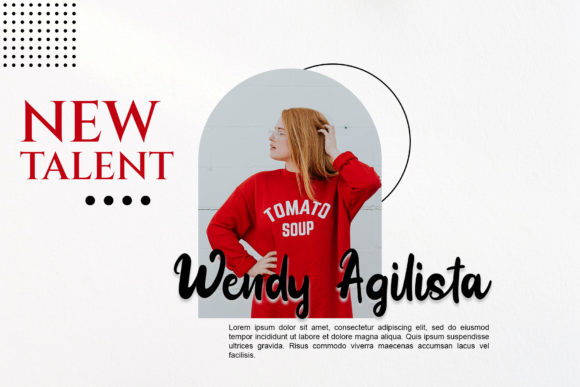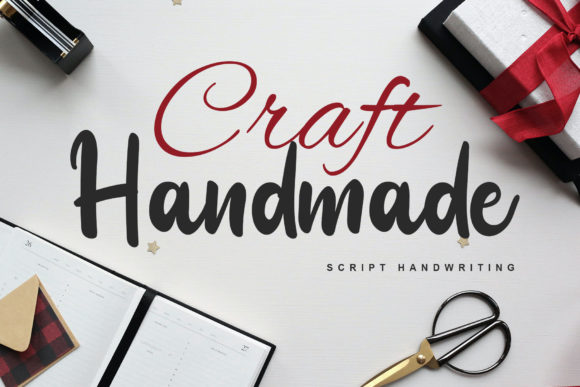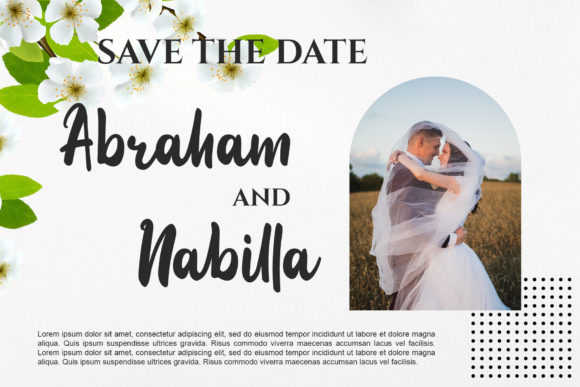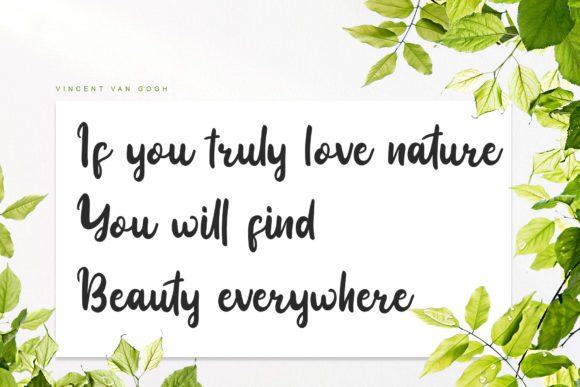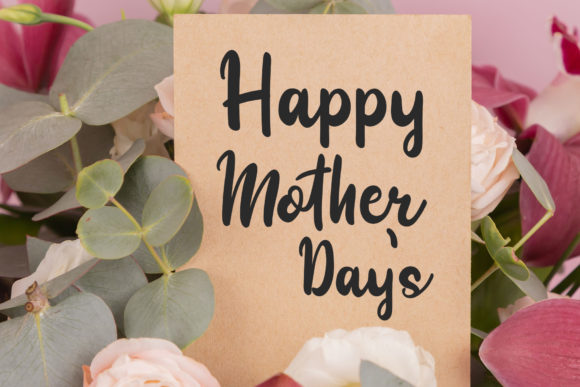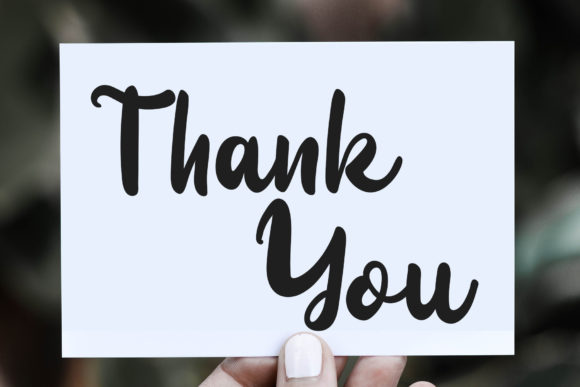
Introduction to Michella Font
As a designer, there’s nothing quite like the rush of creating something from scratch. The blank canvas, the endless possibilities, and the thrill of bringing a vision to life. It’s moments like these that remind us why we love our job. But, let’s be real, sometimes that perfect font can make all the difference. That’s where the Michella Font comes in – a subtle yet eye-catching handwritten font that’s about to become your new design BFF.
With its stylish alternatives and ligatures, Michella Font is the perfect addition to any creative project. Its PUA encoding means you can access all of the glyphs and swashes with ease, making it a valuable resource for designers who crave high-quality, customizable fonts. Whether you’re working on a design project or just need a font for a quick mockup, Michella Font is sure to impress.
Key Features of Michella Font
- Features a unique, modern design with a mix of bold and elegant elements, perfect for adding a touch of sophistication to your project.
- Includes a full character set, making it suitable for a wide range of languages and applications.
- Designed with a high resolution, ensuring that it looks sharp and clear even when scaled up or down.
Honest Review: Michella Font
I recently came across the Michella Font and I have to say it’s been a game-changer for my creative projects. I was initially drawn to its elegant and modern design, which is perfect for a variety of design resources.
Here are some of the things that work well for the Michella Font:
- ✨ High quality design that’s perfect for logos, headings, and body text.
- ✨ A wide range of font styles and sizes to choose from, making it a versatile design resource.
- ✨ A transparent background, which makes it easy to use in a variety of design contexts.
- ⚠️ The font may not be suitable for very large or complex design projects, as it can be quite lightweight.
- ⚠️ Some users may find the font’s elegance to be a bit too minimalist for their taste.
Michella Font is commonly used for logos, branding materials, and social media graphics due to its high-quality and versatile design.